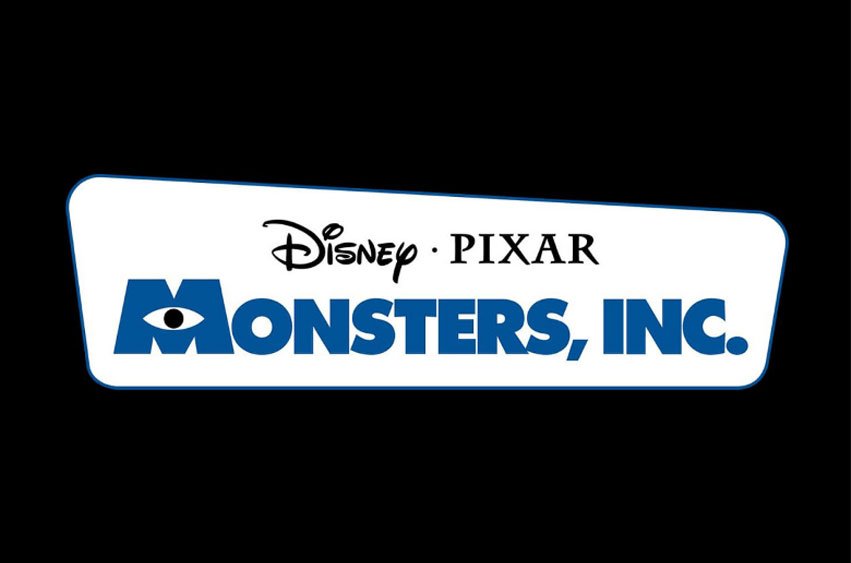
Monsters Inc Font was made available for use for the first time in 2001 in the logo of Monsters Inc, an American Animated movie by Mr. Pete Docter as the director and Mrs. Darla K. Anderson as the producer with a initial budget of $115 Million and to date the movie has earned approx $577.4 Million.